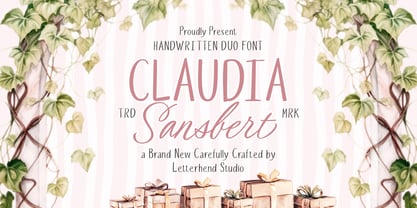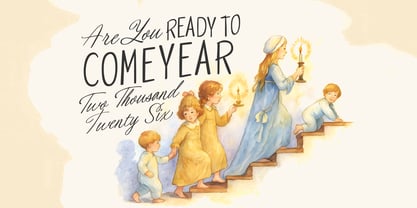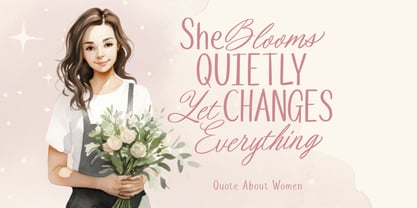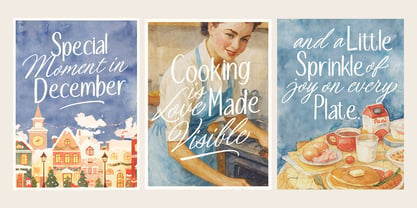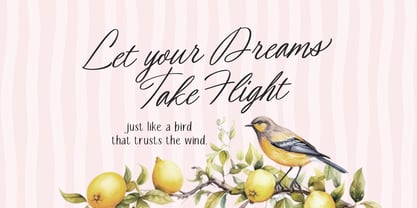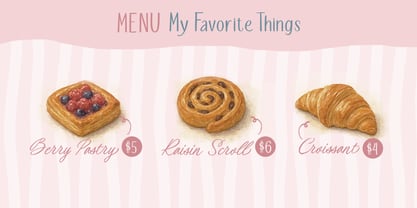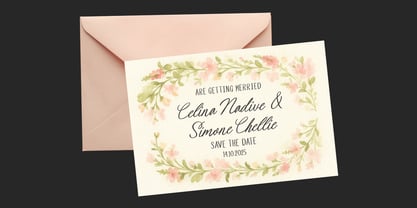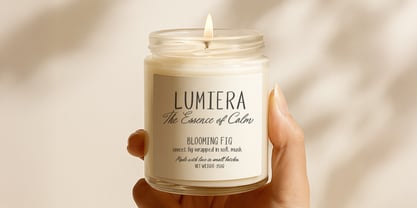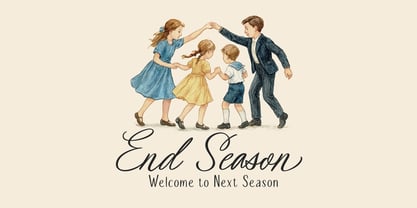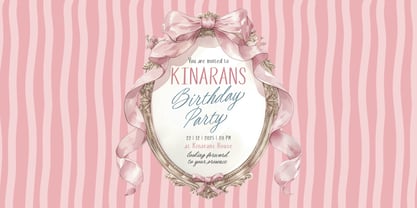
Claudia Sansbert
by Letterhend
The Claudia Sansbert Font Family was designed by Hendry Juanda and published by Letterhend. Claudia Sansbert contains 2 styles and family package options. More about this family
Claudia Sansbert is a charming handwritten duo font that blends soft sans-serif simplicity with elegant script flow. Its friendly, modern strokes create a warm and approachable aesthetic, ideal for invitations, branding, packaging, and lifestyle-themed designs. The pairing offers balance—clean readability from the sans part and graceful personality from the script—making it versatile for projects seeking a delicate, feminine, and heartfelt touch. Features : Uppercase & lowercase Numbers and punctuation Alternates & Ligatures Multilingual Support PUA encoded
Designers: Hendry Juanda
Foundry: Letterhend